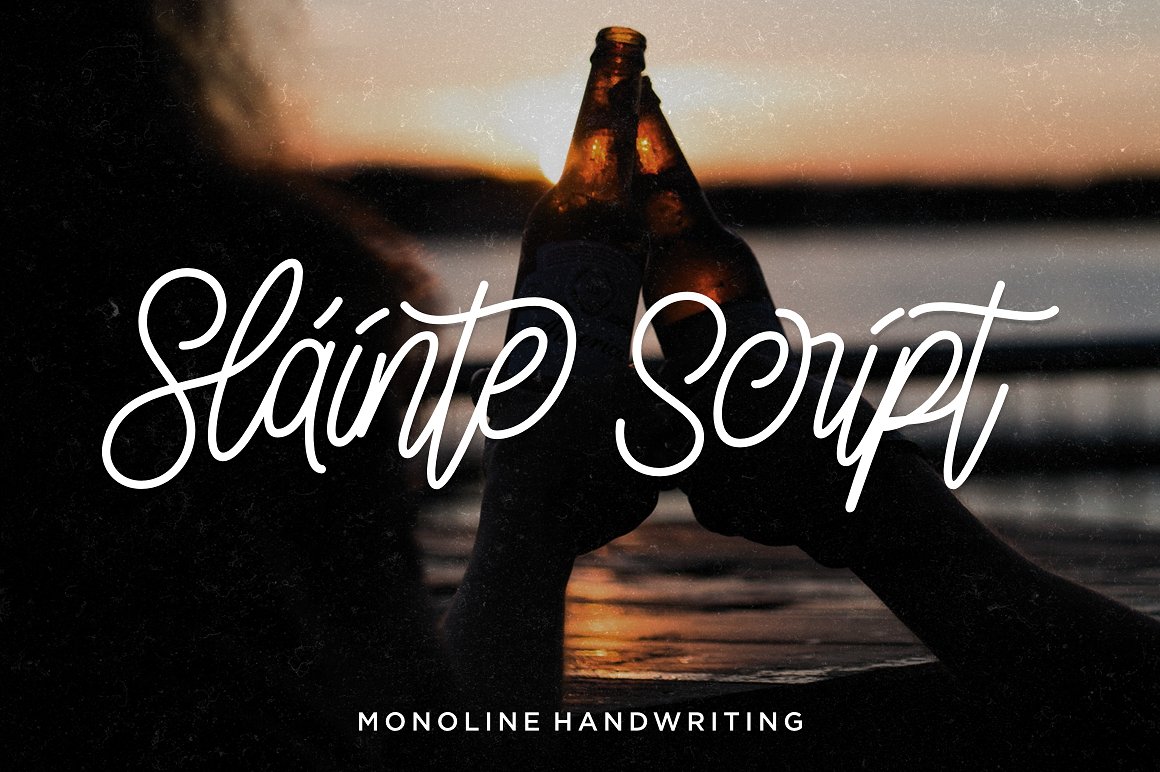
Slainte Script
Slainte Script Font
Introducing Sláinte Script, our new monoline script that are heavily inspired by the modern calligraphy. Refined from scratch using ballpoint pen, this typeface offers you an authentic yet unique handwriting feel. Packed with 400+ glyphs, including lots of alternate characters and ligatures to explore, go wild with them!